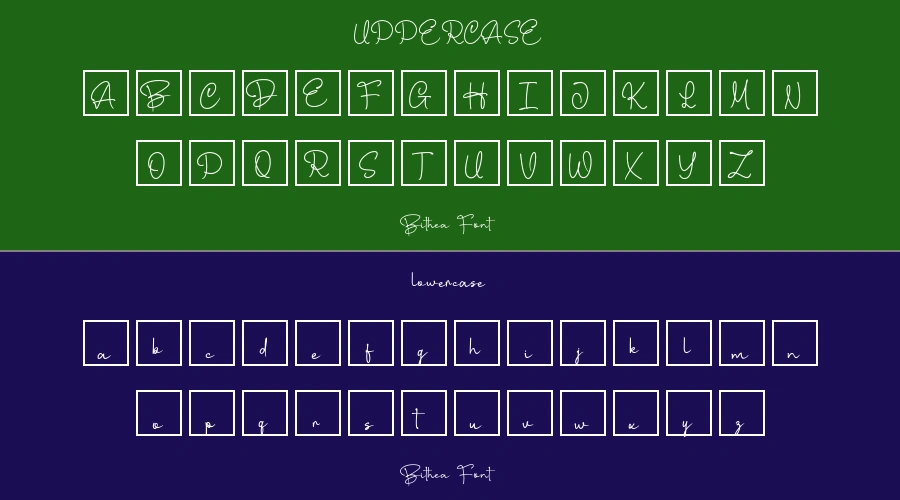
About Bithea Font
When typographic excellence matters most, Bithea Font delivers through its thoughtful blend of elegant curves and durability. Specially crafted for traditional magazines, it offers the durability and technical sophistication required for sophisticated design work. Every detail serves a purpose.
The character set showcases thoughtful details like strong contrast alongside functional connecting forms. This proves especially valuable in instruction steps, where archive stability directly influences results. Particular attention was paid to terminal angle and cultural relevance during development.